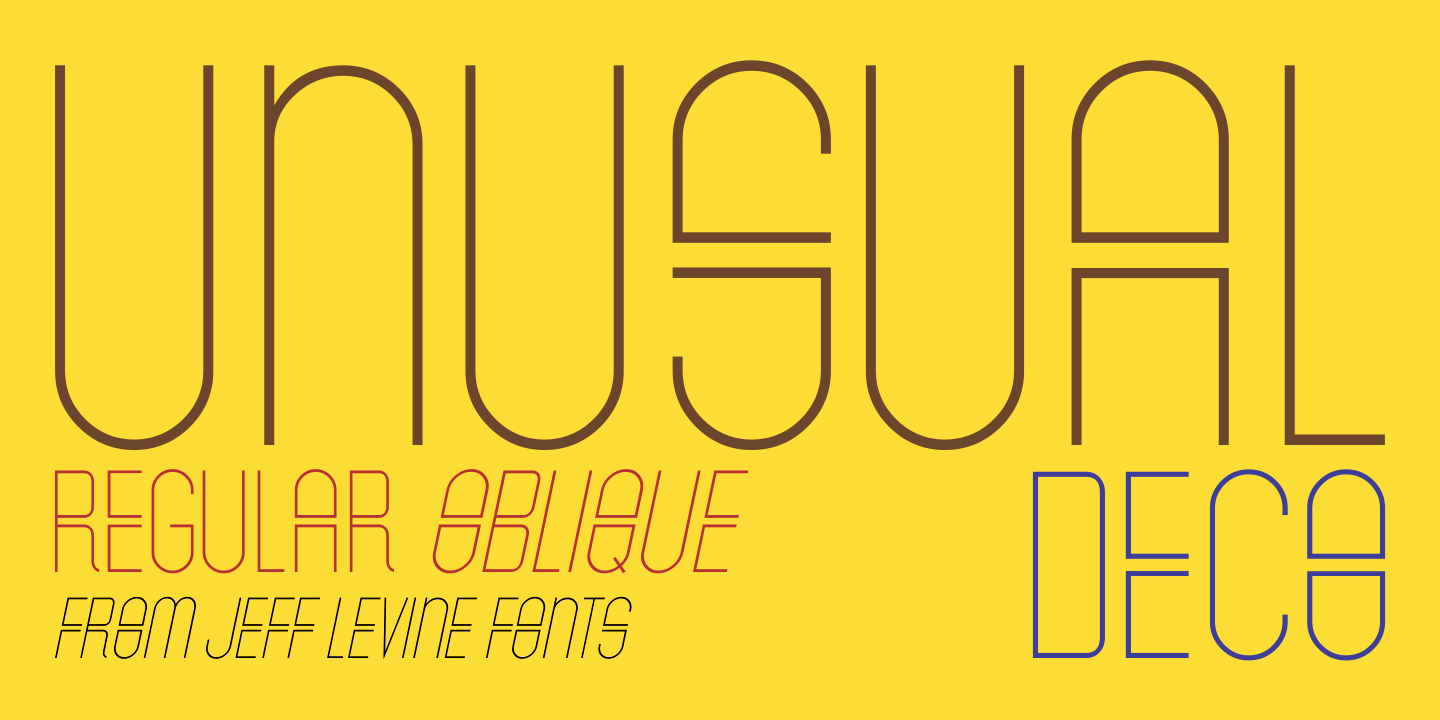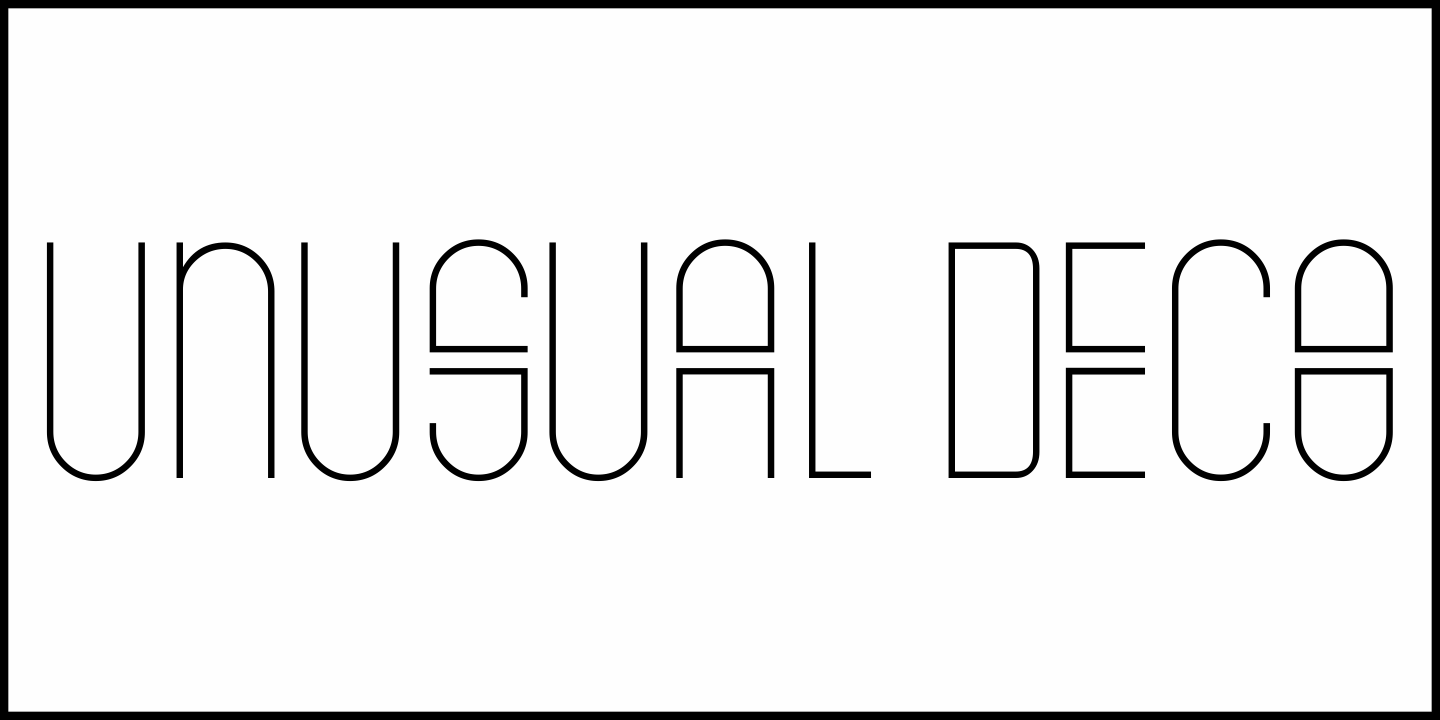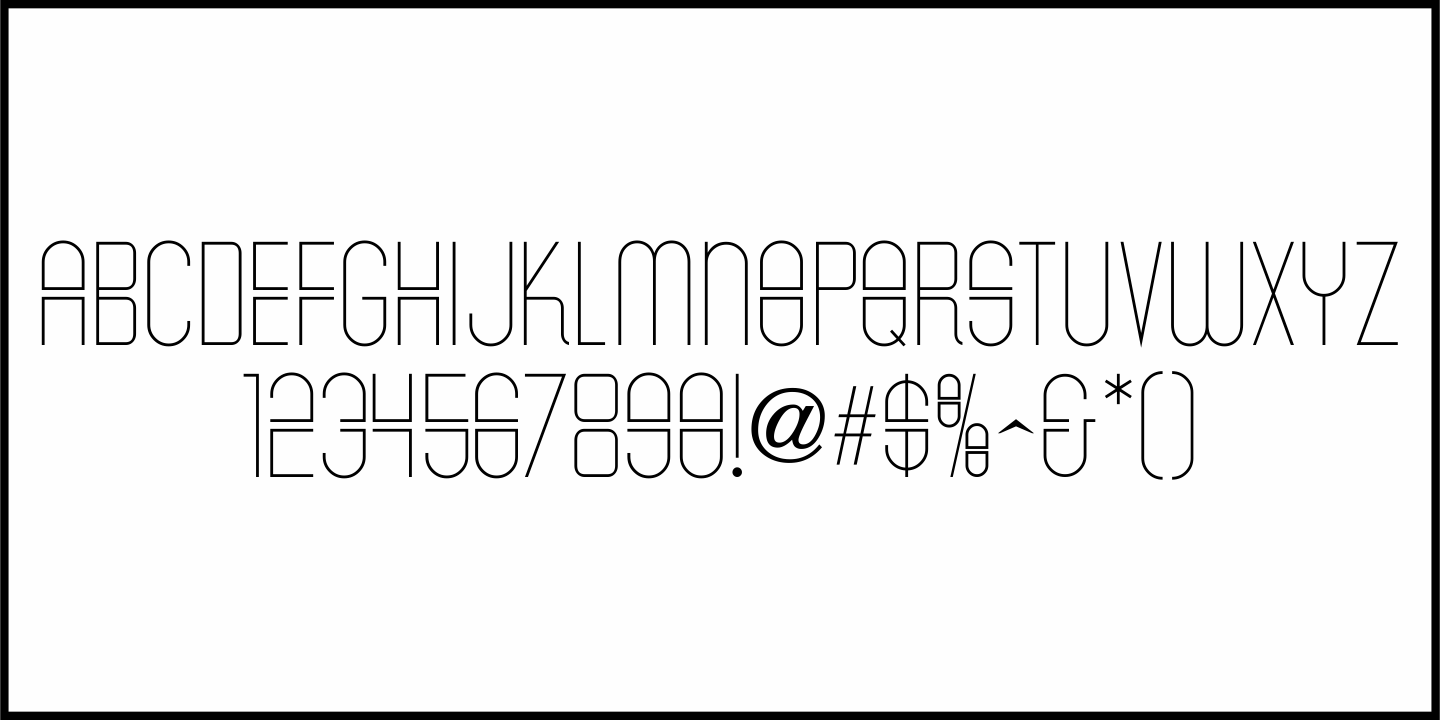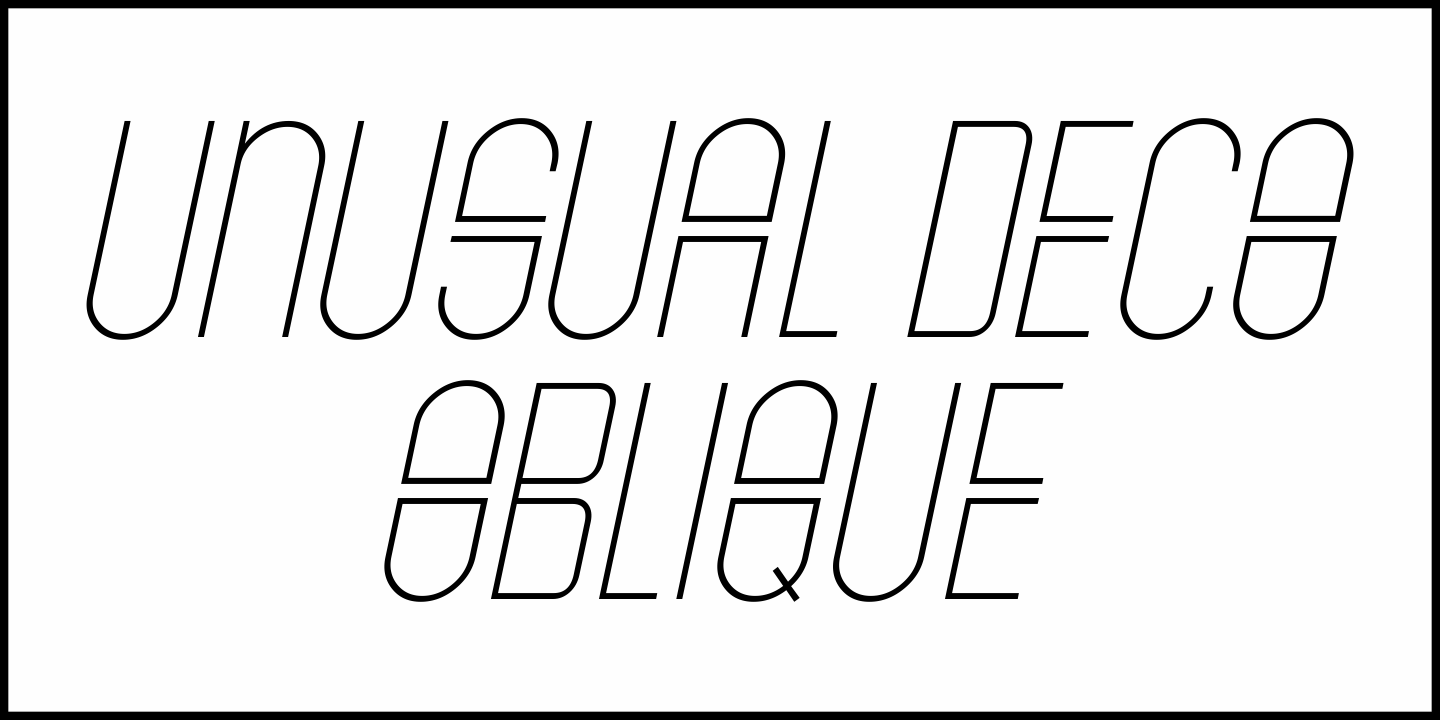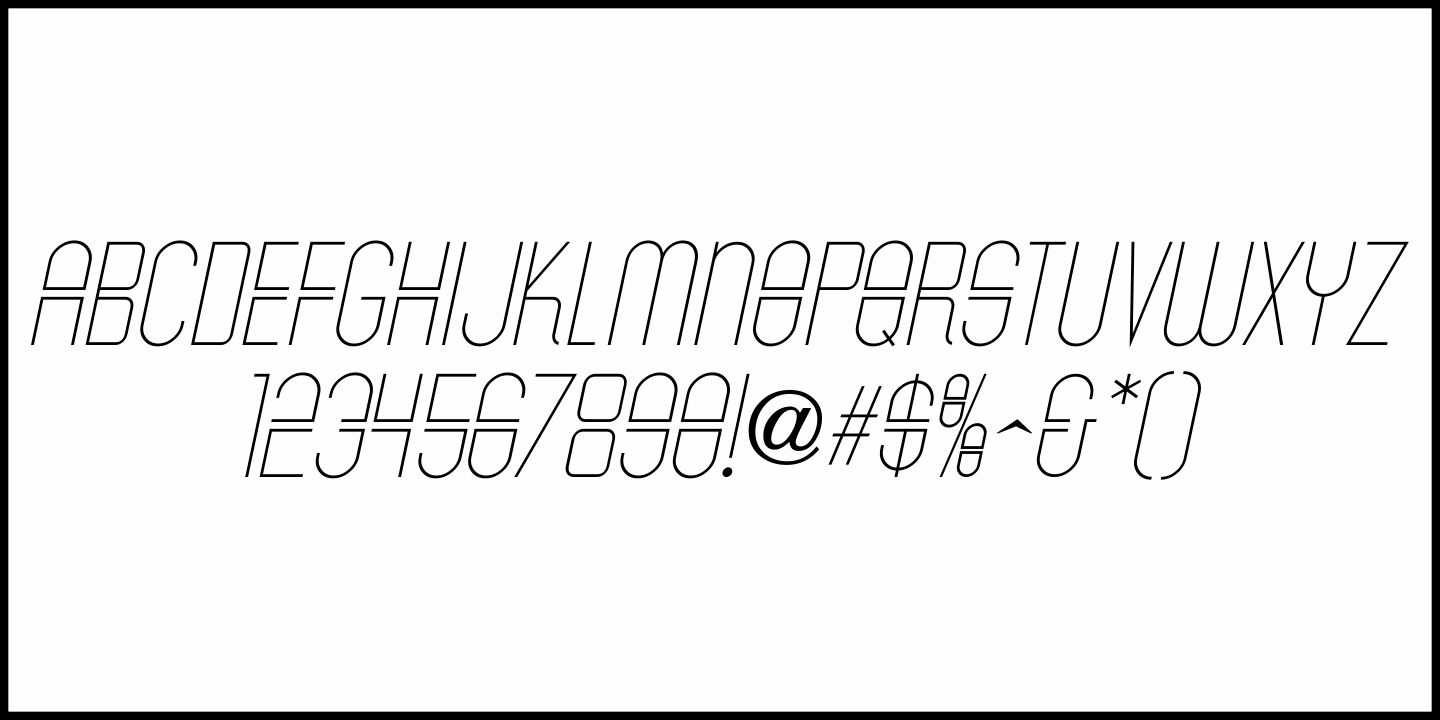
Unusual Deco
The hand lettered title in the December, 1936 issue of Picture Play Magazine for their feature "Thumbnail Reviews" showcased a thin Art Deco sans design with unusual features. The uniqueness of these stylized letter forms inspired a digital version called Unusual Deco JNL, which is available in both regular and oblique versions.